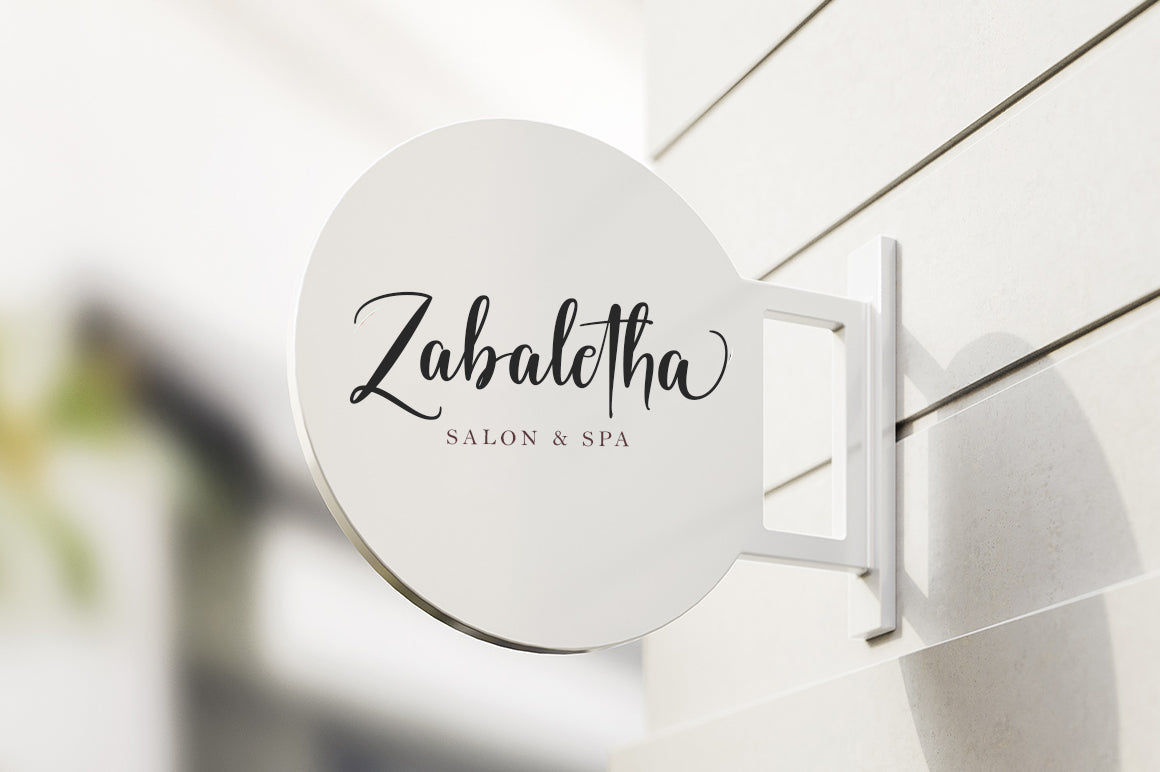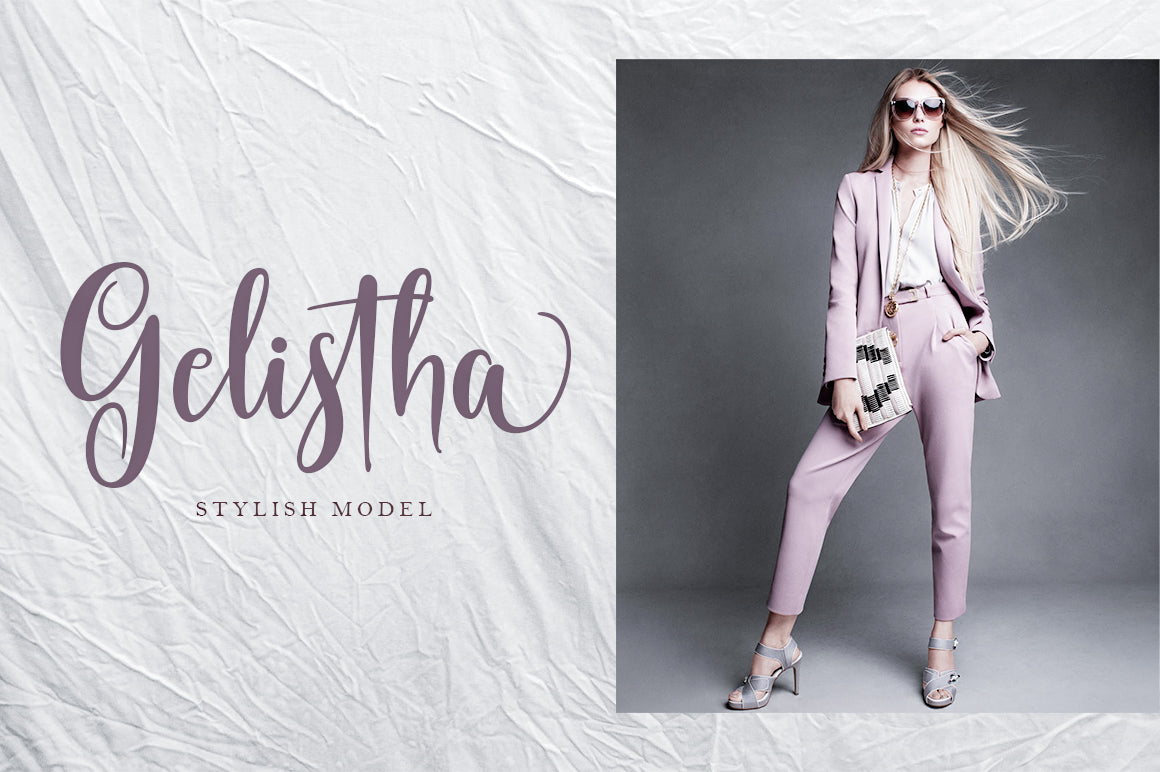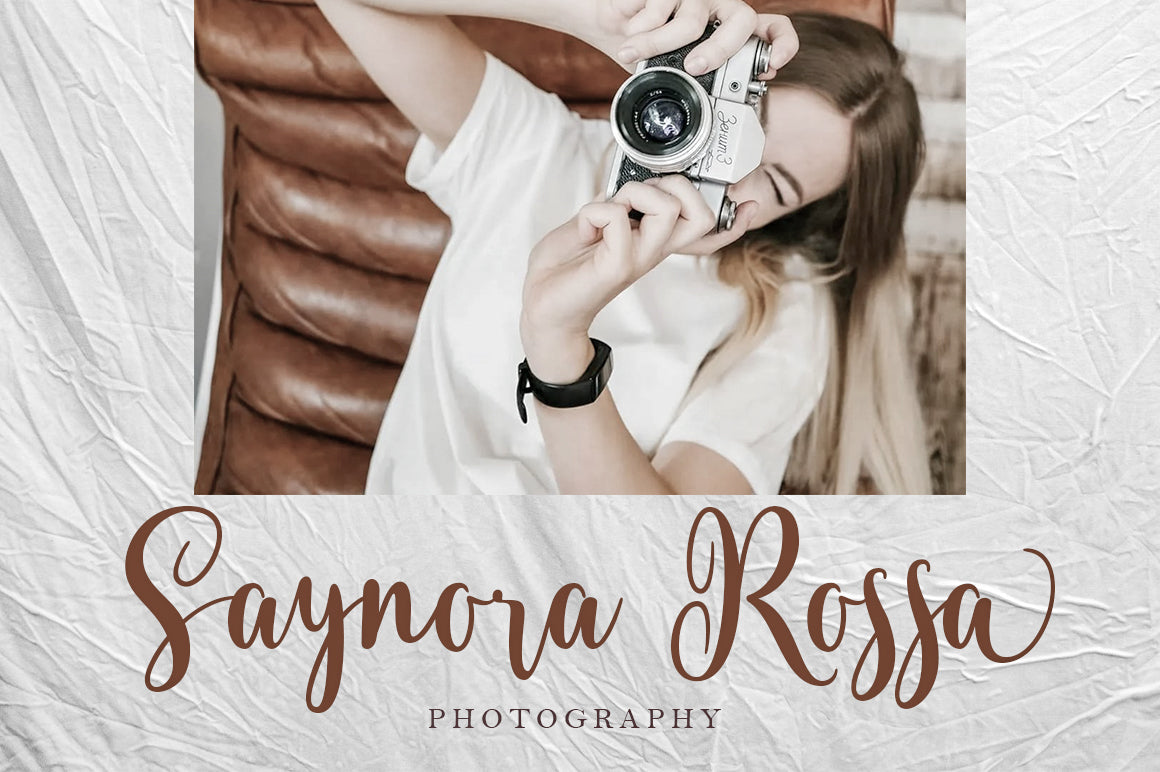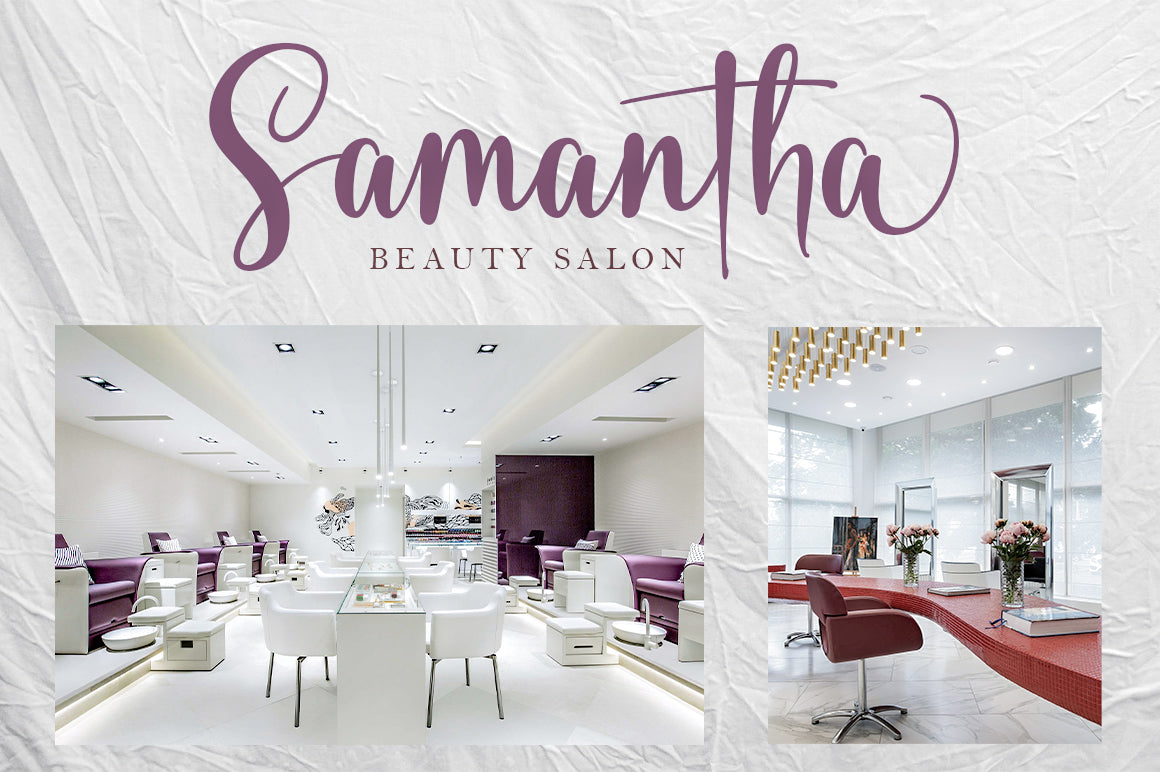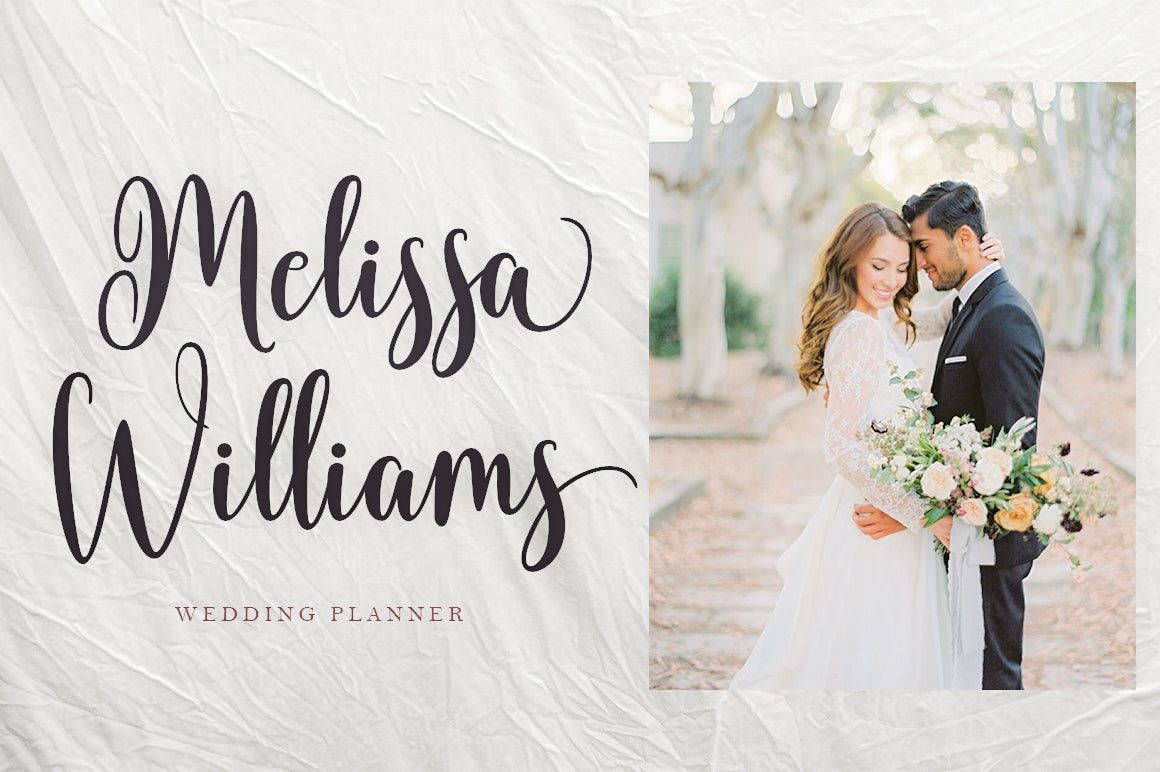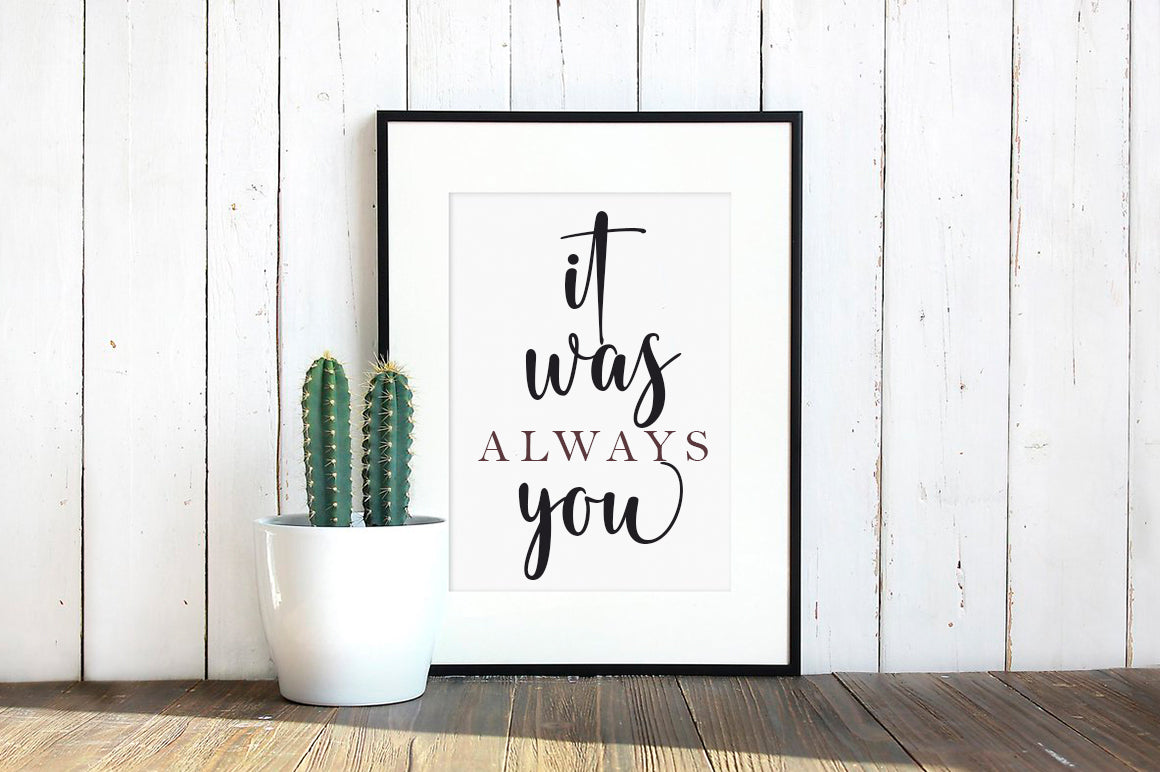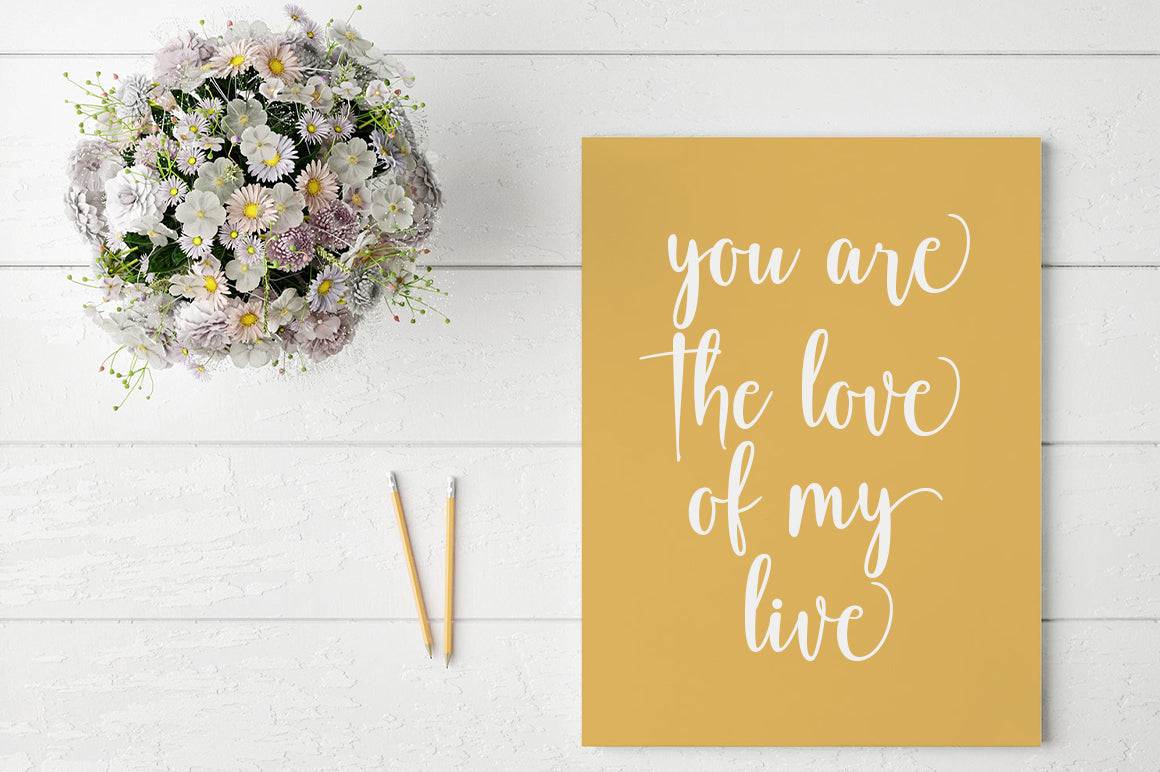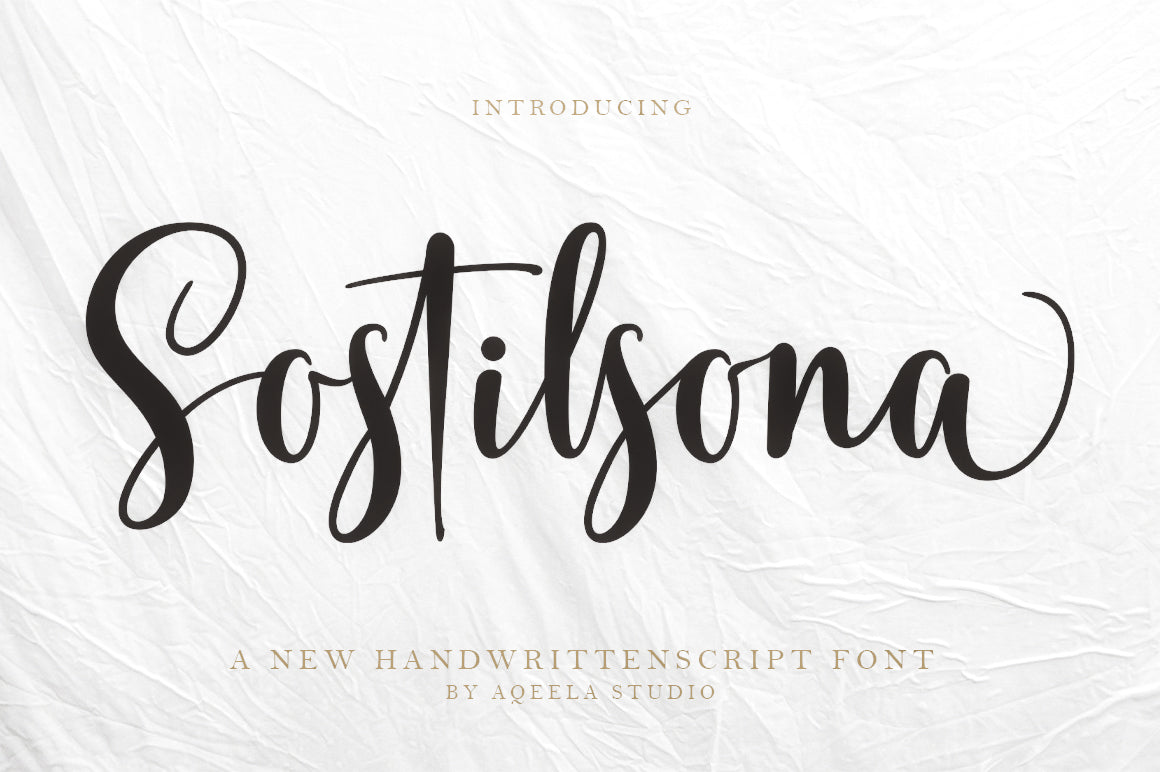
Sostilsona
About Sostilsona
Sostilsona is a lovely and timeless handwritten font. It is the best choice for creating eye catching logos, branding and quotes. This font is PUA encoded which means you can access all glyphs and swashes with ease!